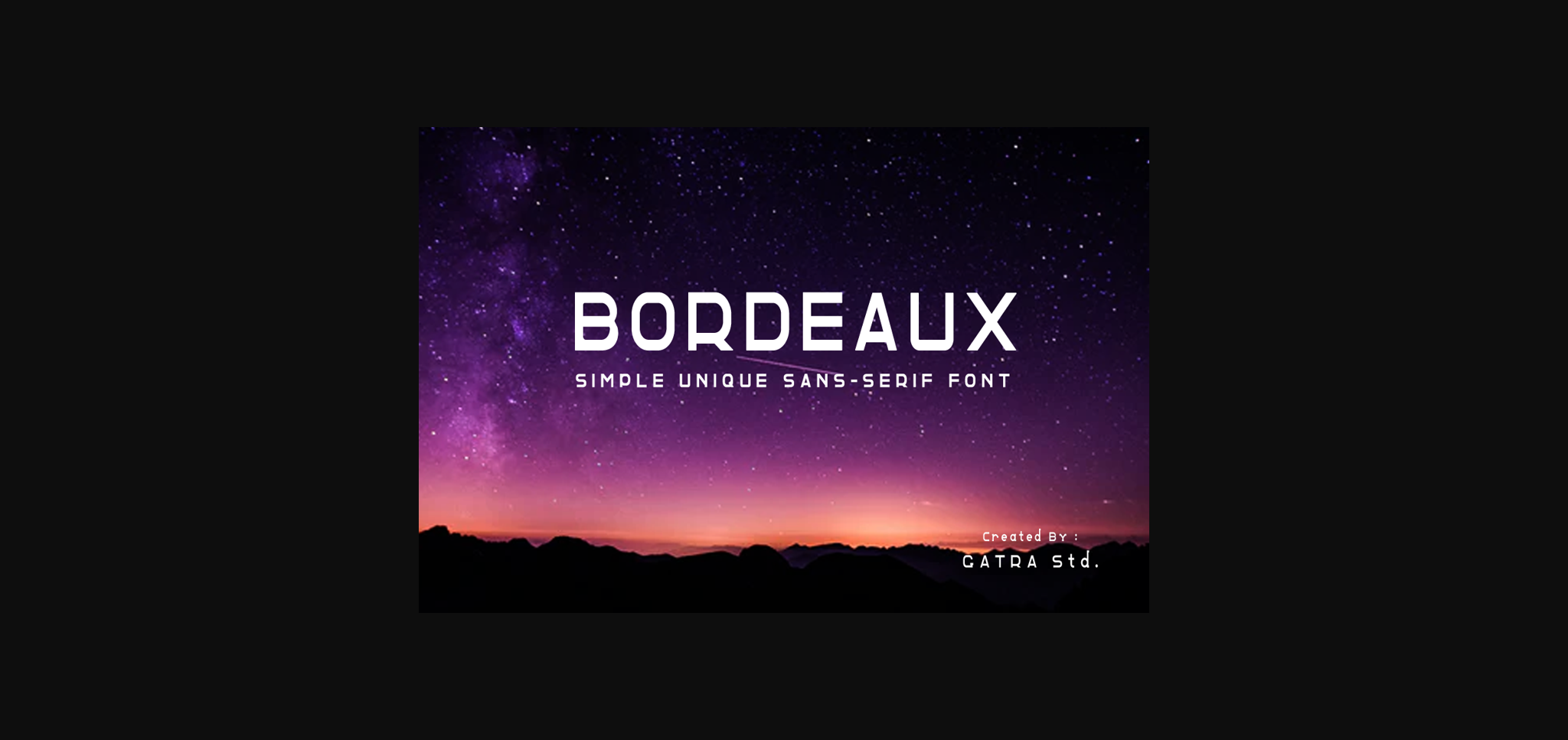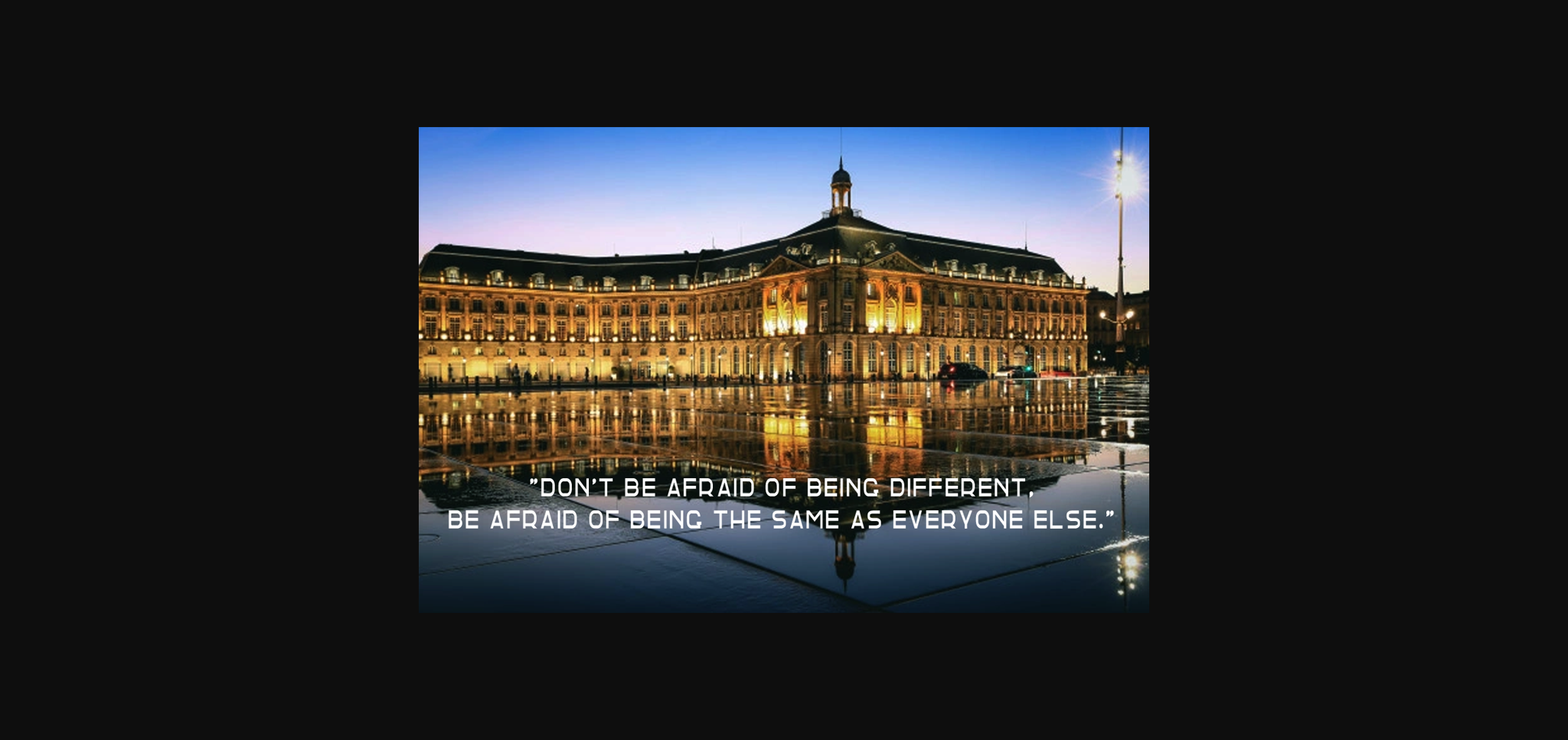
About Bordeaux Font
Bordeaux is a simple and techno looking sans serif font. It can easily be matched to an incredibly large set of projects, so add it to your creative ideas and notice how it makes them stand out!